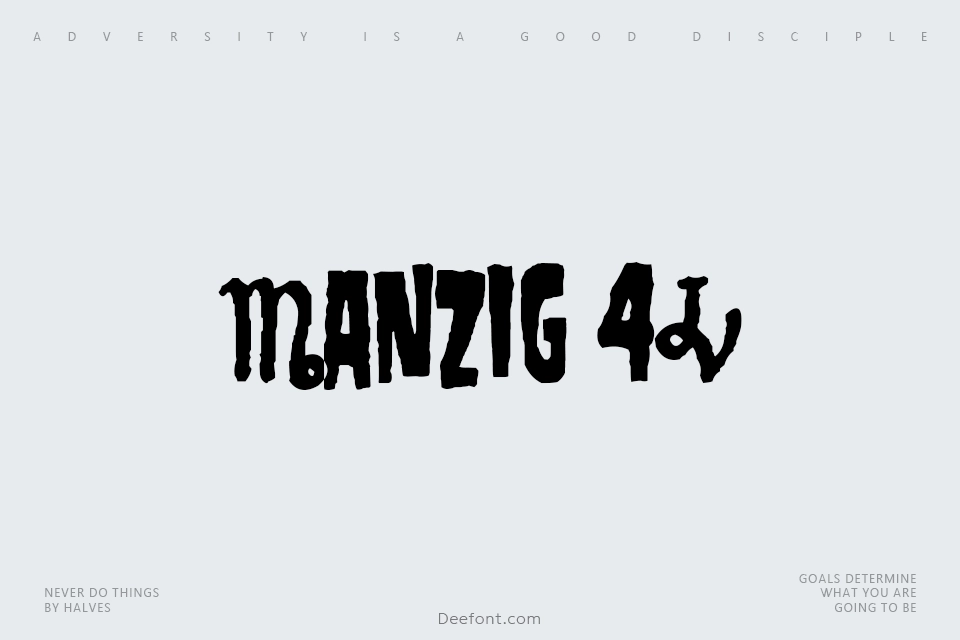
Danzig 4P Font
Danzig 4P is a distinctive fancy and horror-themed display font created by Rob Villareal in 2001. This typeface features runic and symbolic elements inspired by the Giant Godzilla movie poster, as well as the Danzig and Samhain band logos. The capital letters showcase symbols from Danzig’s 4P album artwork, while the lowercase letters maintain decorative consistency. The font includes a unique skull symbol for undefined characters and comprehensive support for numbers and punctuation, making it ideal for horror, gothic, and music-related design projects requiring bold visual impact and distinctive character.